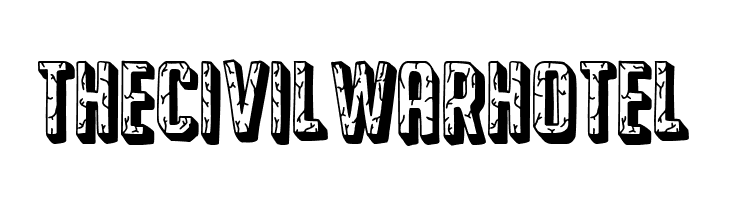
A bold, distressed, three-dimensional font with a vintage, rugged appearance.
A playful, handwritten font with bold, rounded strokes and a casual style.
A bold, hollow, decorative font with a blackletter-inspired style.
A bold, dynamic script font with a 3D extruded effect, perfect for modern designs.
An ornate, decorative font with hollow interiors and intricate swirls.
A playful and whimsical script font with elegant curves and decorative flair.
A bold, condensed, and italic font with a modern, dynamic style.
A dynamic and expressive handwritten font with fluid, cursive strokes.
A bold, playful handwritten font with rounded edges and consistent height.
A bold, playful font with rounded, whimsical characters.